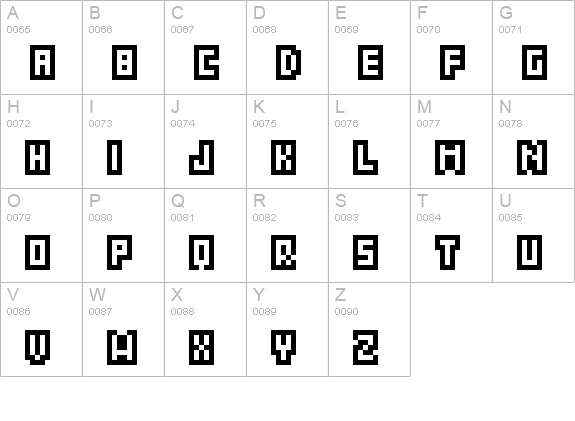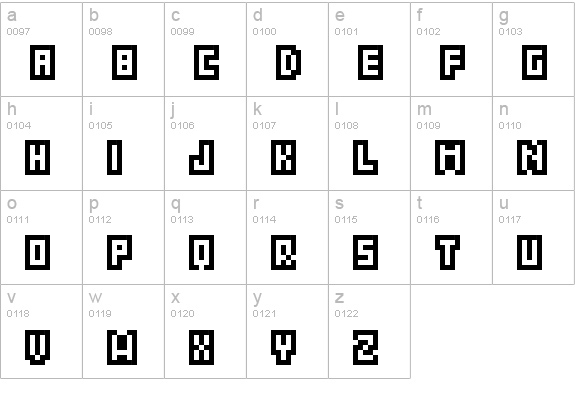
Grixel Acme 5 CompCapsO Xtnd font is a unique and eye-catching typeface that combines modern design elements with a touch of retro nostalgia. This font is perfect for adding a playful and dynamic touch to any creative project, whether it's for branding, advertising, or graphic design. What sets Grixel Acme 5 CompCapsO Xtnd font apart is its versatility and adaptability to various design themes and styles. With its bold and geometric shapes, this font conveys a sense of energy and excitement, making it ideal for capturing attention and making a statement. The best part is that Grixel Acme 5 CompCapsO Xtnd font is completely free to download at FontsMarket.com. This means that you can easily access and use this font in your projects without any cost, making it a valuable resource for designers and creatives looking to enhance their work with a touch of creativity and originality. Don't miss out on the opportunity to elevate your designs with the bold and captivating Grixel Acme 5 CompCapsO Xtnd font, now available for free download at FontsMarket.com.